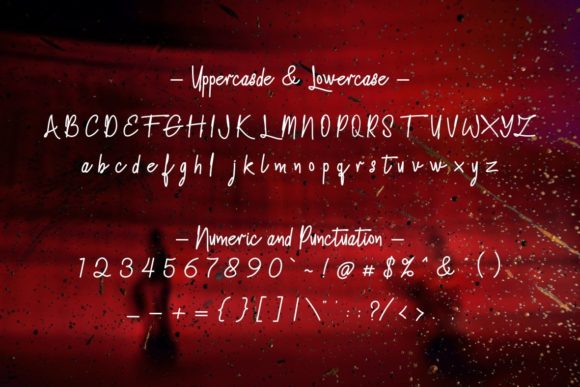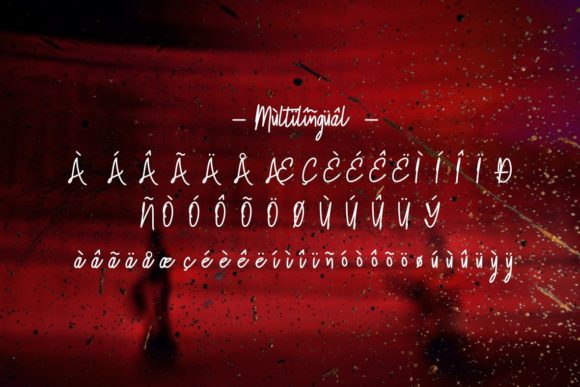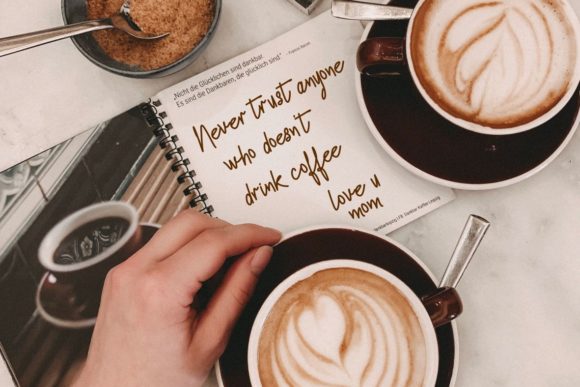
Blank Space Font
About Blank Space Font
Blank Space is a thin lettered and modern handwritten font.
The unique groove and easy signature style makes it perfect to be use for logos, signatures, quotes, badges, labels, packaging designs, blog headlines, and more.